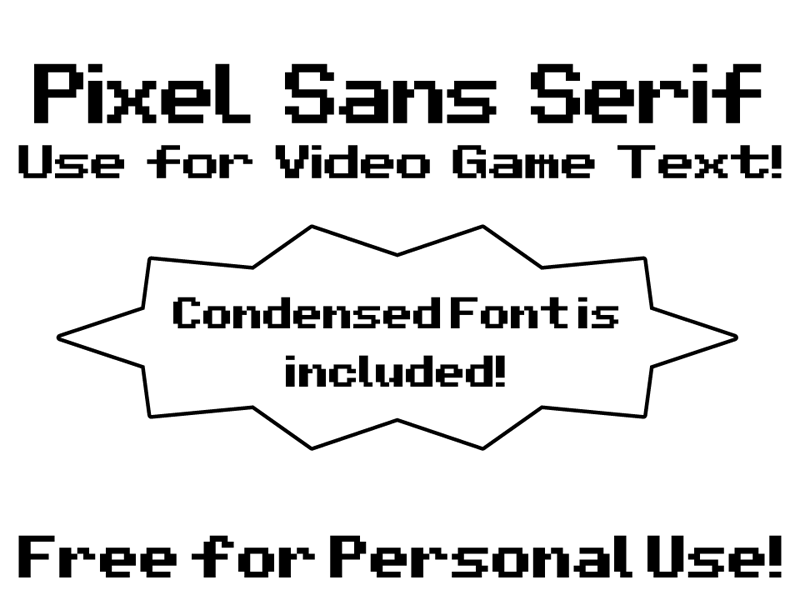
| Note by Muhd Rusyaidi | |
| It is the new pixel font which is very regular and cool. Suitable for use in video game arcade, retro and computer for DOS games. Made using Fontstruct. |